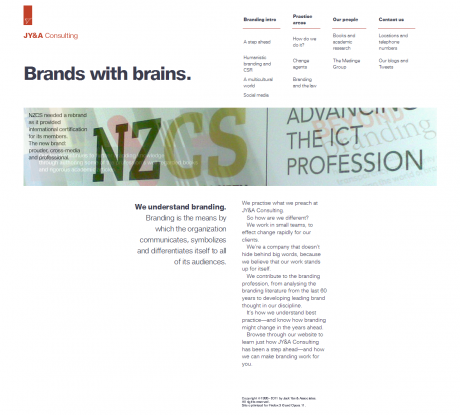
For years, I’d been going on about font embedding. The original solutions, such as WEFT, were never that reliable: I remember my first attempt around 2000 came out all in italic. In those days, too, font embedding would work in one browser and not in another; plus there were plenty of legal ramifications to embedding fonts.
Over the last decade, the industry has come to more of an agreement on embedding. Some foundries and distributors sell licences to cover embedding, while there are now widespread tools available. Some designers have released Creative Commons fonts, many of which can be embedded.
Font Squirrel is probably the best known way to generate a kit (containing stylesheet code, website-only fonts, plus sample specimen sheets) and over the last few months, I’ve been experimenting.
The Lucire website was the first beneficiary of that, with the headlines displaying in JY Fiduci, a typeface family I developed for internal use (though once I finish the bold italic, I might release it). Initial thoughts: it looks somewhat bitmappy. It’s not – take a screen shot and blow it up and you’ll see some antialiasing – but it’s far from being as smooth as the rest of the page.
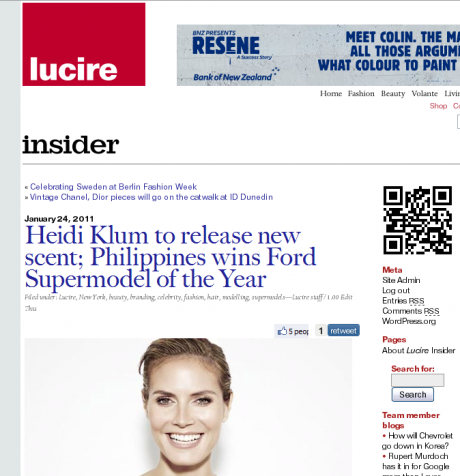
The headline is set in JY Fiduci, an embedded font. The writer believes it is not as sharp as a regularly installed font.
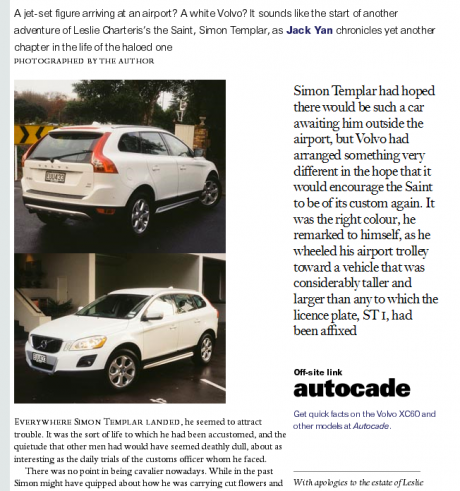
The pull quotation on this web page looks bitmappy.
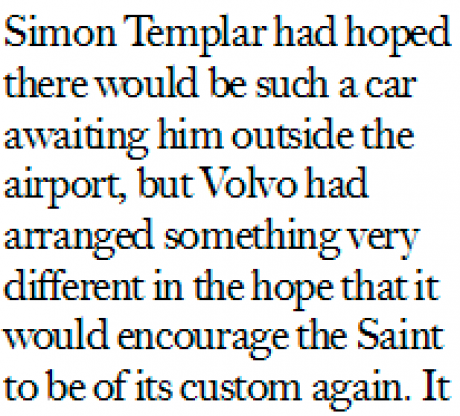
However, when enlarged, it is antialiased – just not as well as with a conventional font.
I also had some compatibility issues, with Chrome refusing to show the SVG files, though Firefox, IE, Opera and even Safari were all right.
Chrome fails to embed Fiduci, displaying text in a default font.
In these days of broadband, the extra time taken to download (and the web page does this at the end) was negligible, though I would hate to load some of our pages on dial-up – assuming one was in a weak wifi area or in a less advanced country.
Having tried it with headlines, I went the whole hog when developing jya.co, JY&A Consulting’s new website.
JY&A Consulting's new website: embedded fonts all round, but the small type is not very sharp.
Judgement: it’s really not that good with non-headline type, at least not the way browsers are rasterising the glyphs. I could have picked a different typeface family, but I wanted fidelity with the rest of the company’s materials. That’s probably a major consideration for a lot of designers. But it meant the result wasn’t as clear as I would have liked.
What it means is that designers will have to be far more careful about type, especially if they’re going to choose something that the client will use cross-media. While font embedding is, on the whole, a good thing, not all the bugs have been ironed out; for now, I’d recommend sticking to embedding for headlines, and avoid text unless you’re confident about download times and the ability of the chosen typefaces to stay legible at small sizes.